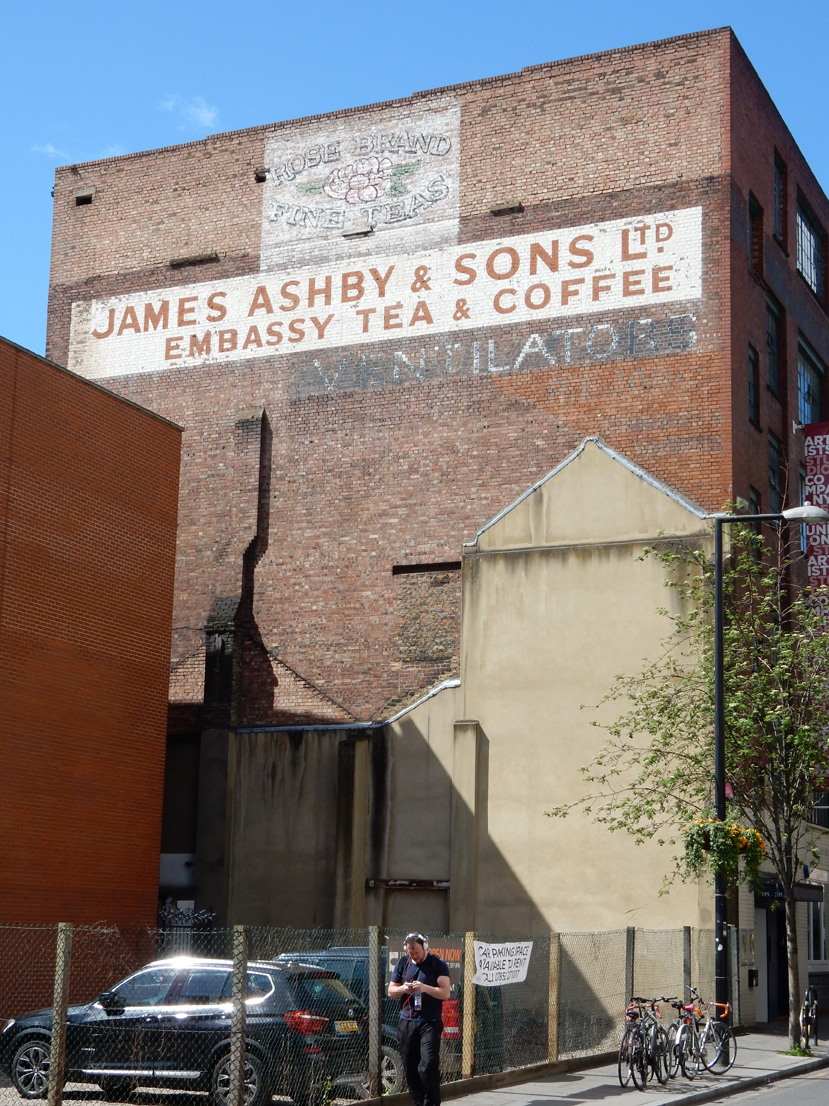
Sign painting past and present
Open your eyes, look up and discover ‘ghostsigns’, the fading remains of hand-painted advertising on walls.
Sam ‘ghostsigns’ Roberts leads tours of these faded signs in Stoke Newington in North East London, just down the road from the Type Tasting studio. For the London Design Festival this year he is leading a new walk through the streets of Southwark in South London hunting for the fading remains of painted signs from years gone by. The tour will reveal some of London’s most iconic signs, exploring the local, advertising and design history that they convey.
If you prefer your sign painting fresh off the brush you can try your hand at painting letters in the iconic surrounds of Borough Market with sign legend Mike Meyer “paint, brushes, lettering and laughs guaranteed”. To tie in with this there is a double-bill screening of the Sign Painters movie and 21st Century Victorian, a short film about UK signwriter and fairground artist Joby Carter who says that as a fairground signwriter he considers himself to be a showman. Find out more.
I thin it is so cool to see how far this old trade has come over the years. I personally like the old look of the “ghostsigns” and the old timey feel they have to them. The new signs are still good though and it has a good mix of the old school and the new.